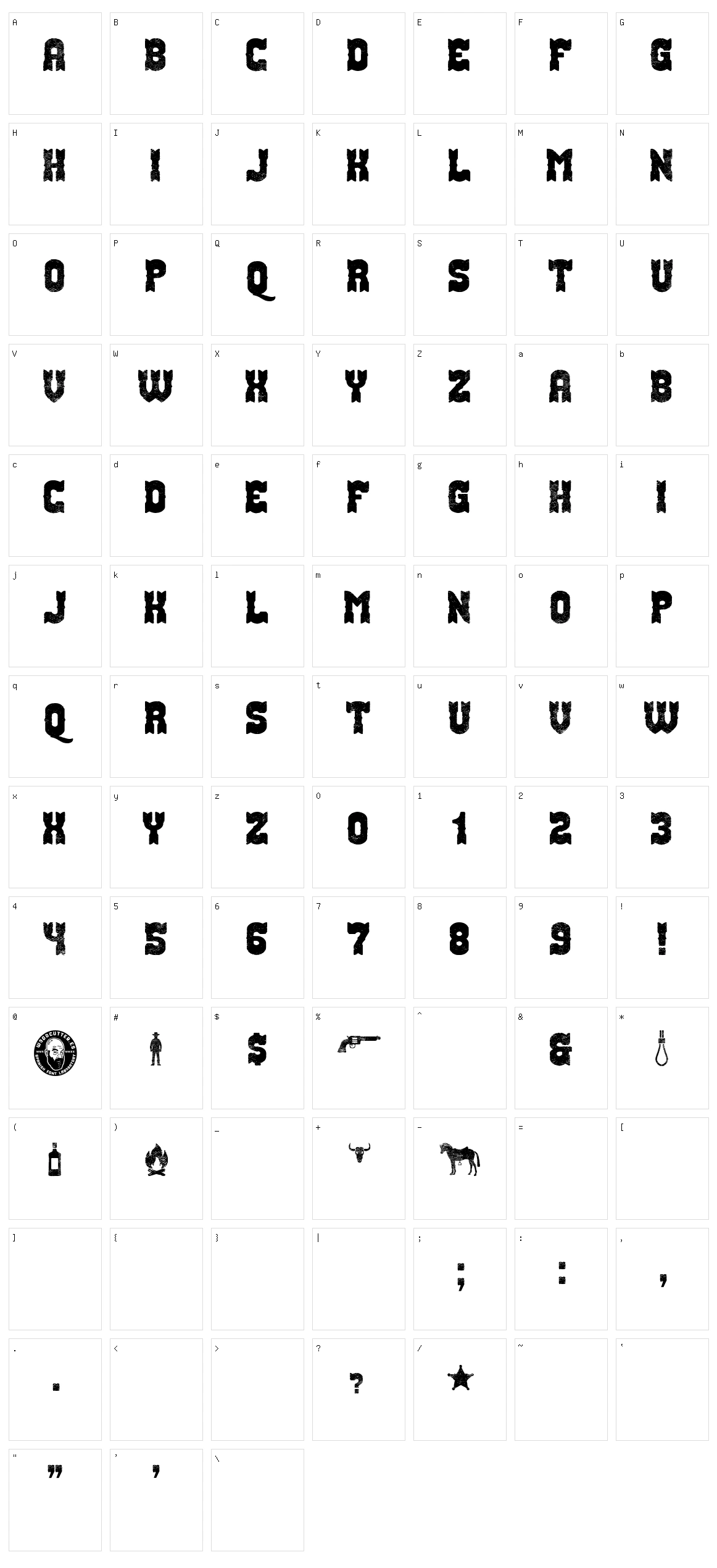
The free font Salvaje Oeste is carefully designed by Woodcutter, showcasing a thoughtful balance of creativity and usability and falls under the Western font style. When you download the ZIP file, it contains only 181.62 KB of font files, making it lightweight and quick to download. Please review the license details below to understand permitted usage and distribution rights. If license information is not available, we recommend using this font for personal projects only or contacting the author directly for commercial usage permissions.